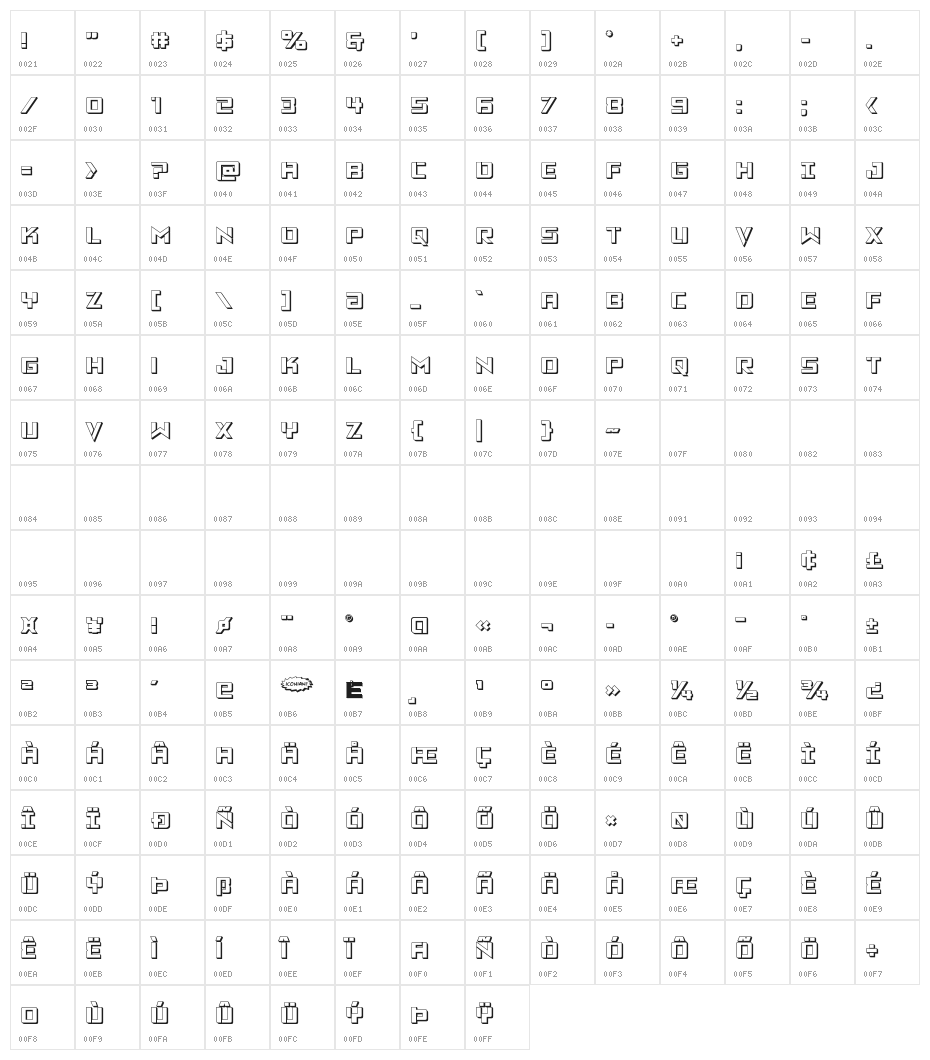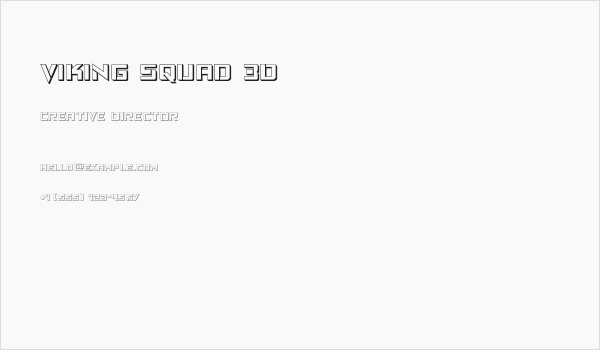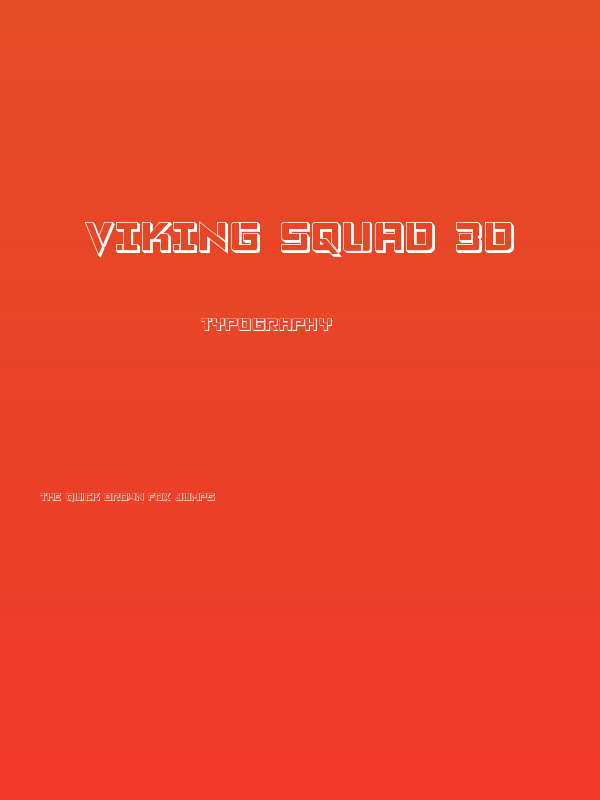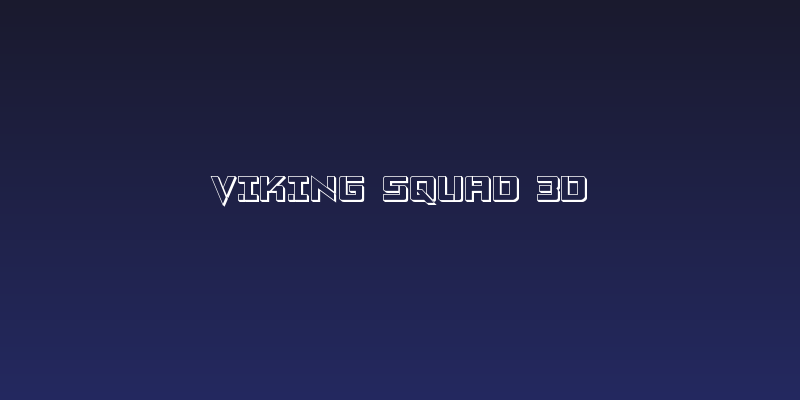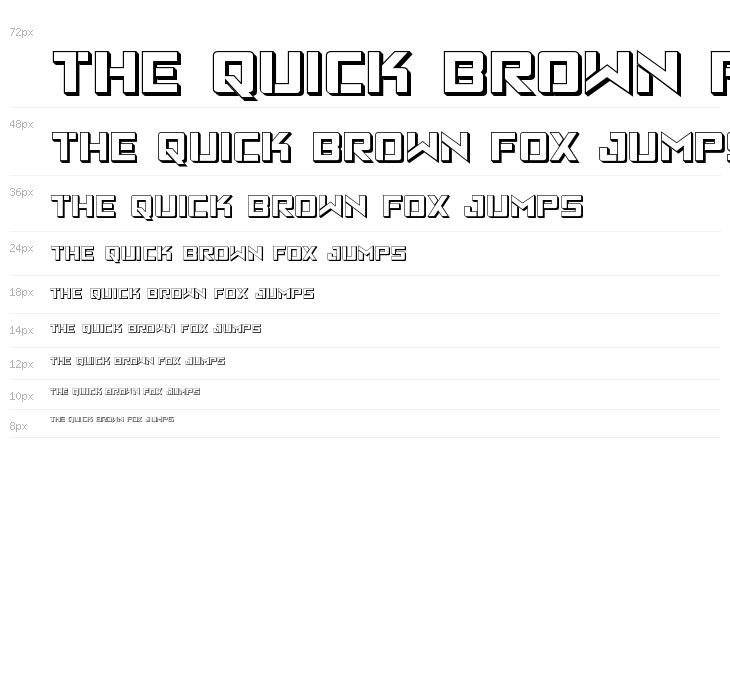
Viking Squad 3D Font
Viking Squad 3D Description
This font features a bold, three-dimensional design with a strong geometric influence. The characters are outlined, giving them a hollow appearance that enhances the 3D effect. Each letter has sharp angles and clean lines, contributing to a futuristic and dynamic look. The uppercase and lowercase letters maintain a consistent style, with the uppercase being more prominent. Numbers and special characters are designed to match the bold and structured aesthetic, making this font suitable for attention-grabbing designs.
| Proposed Projects | Ideal for video game titles, sci-fi movie posters, tech company logos, and modern advertising campaigns. |